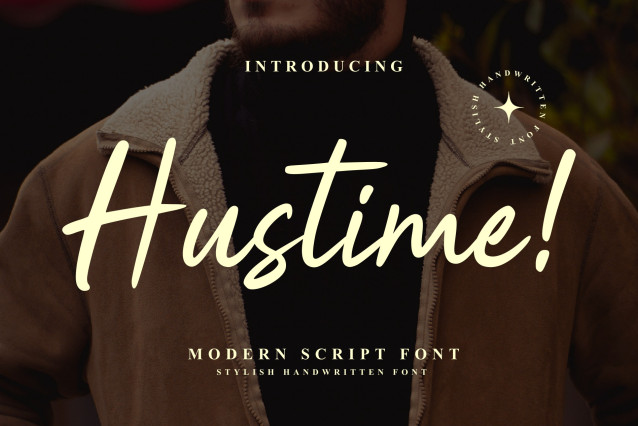
Hustime Script Font
Hustime Script Font is a simple and friendly handwritten font. Its natural and unique style makes it incredibly fitting to a large pool of designs. The only limit is your imagination!